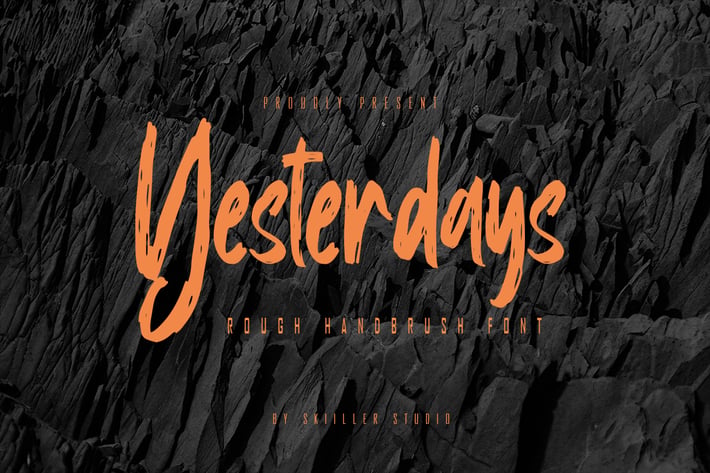
Yesterdays is a dry handbrushed font, designed to combine perfectly and allows you to create stunning handwriting quickly and easily. Ideal for logos, handwritten quotes, product packaging, headers, posters, merchandise, social media & greeting cards.
+ Basic Latin Language Support (AÀÁÂÃÄÅCÇDÐEÈÉÊËIÌÍÎÏÑOØÒÓÔÕÖUÙÜÚÛWYÝŸÆß )